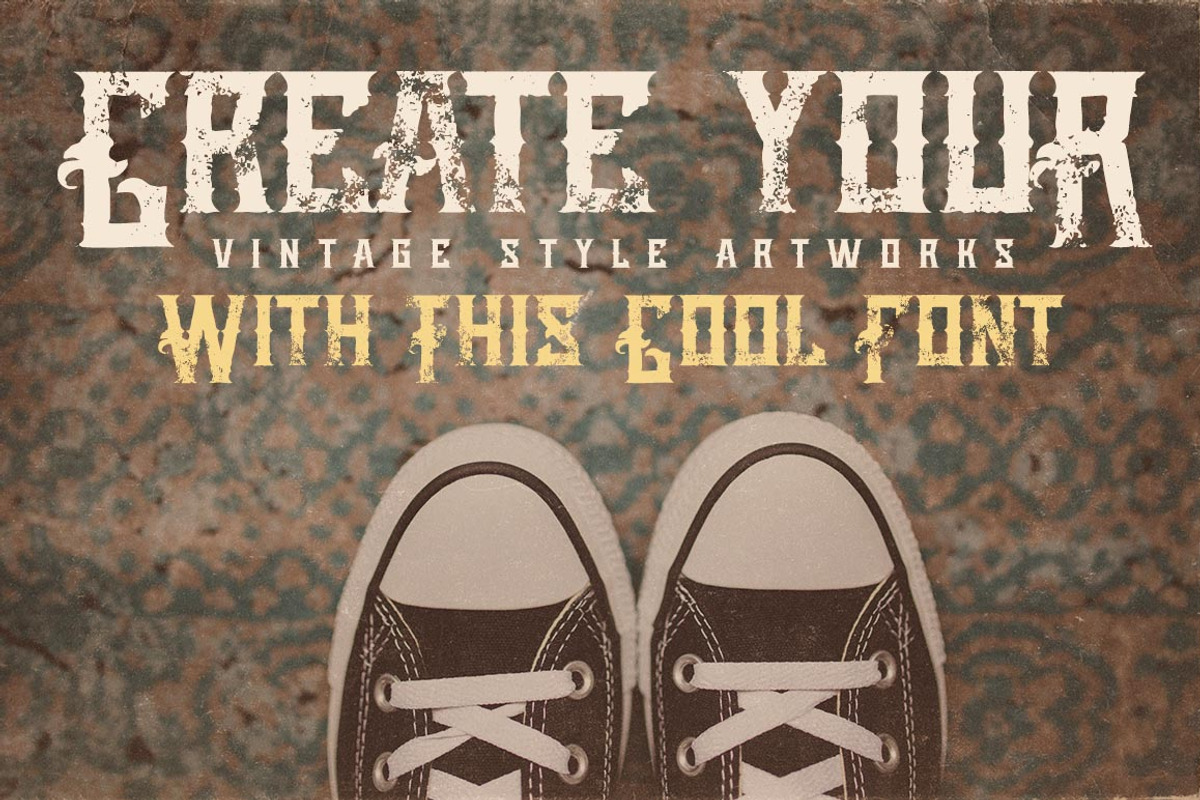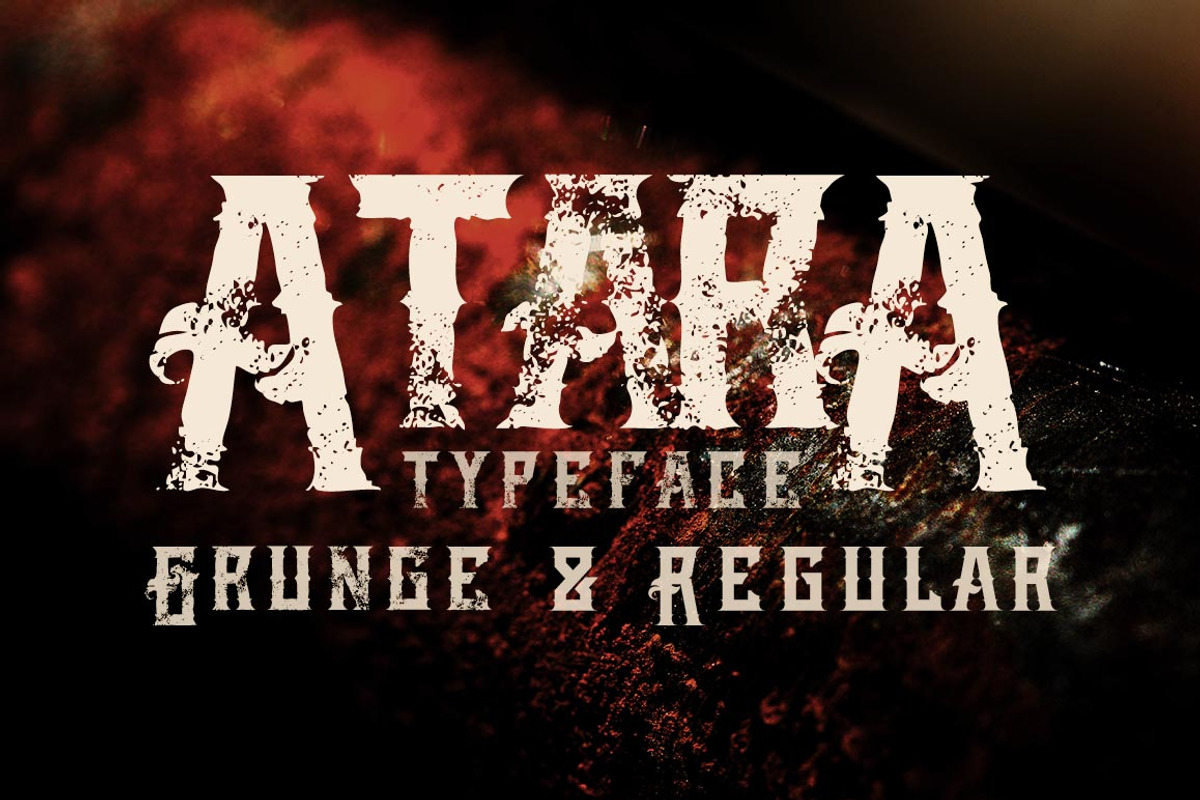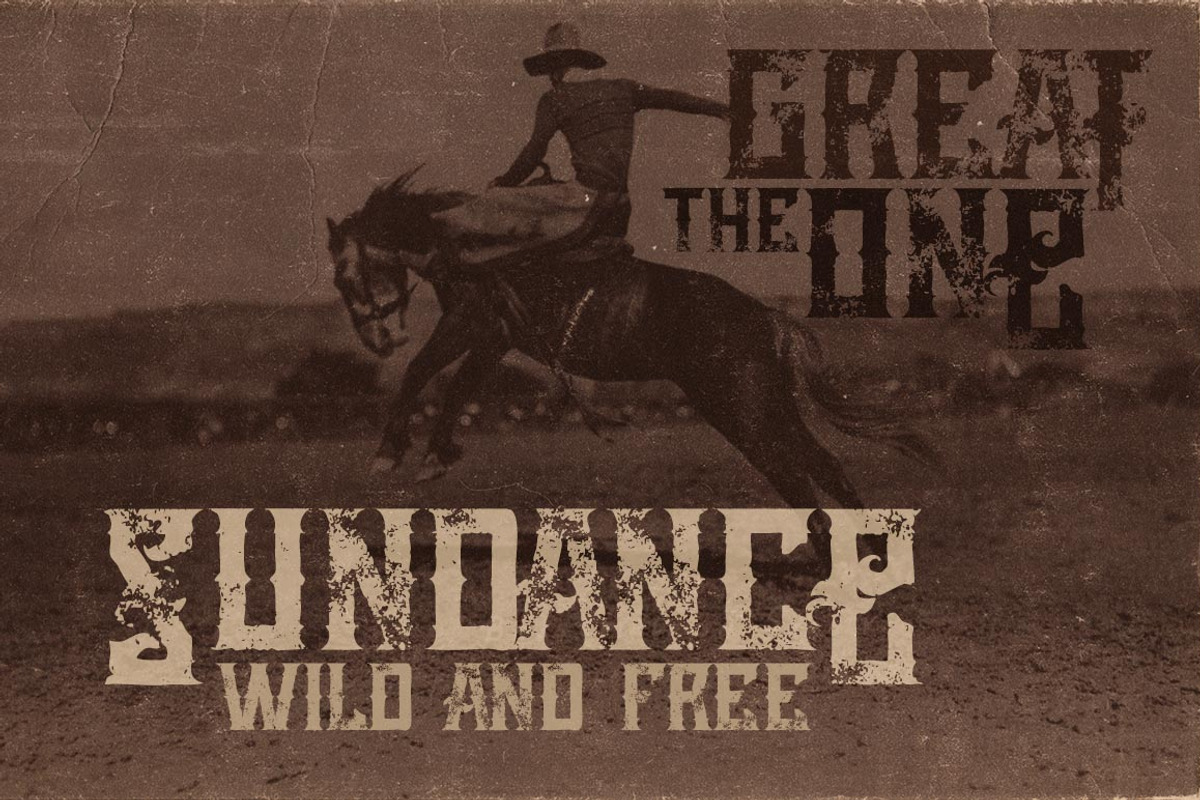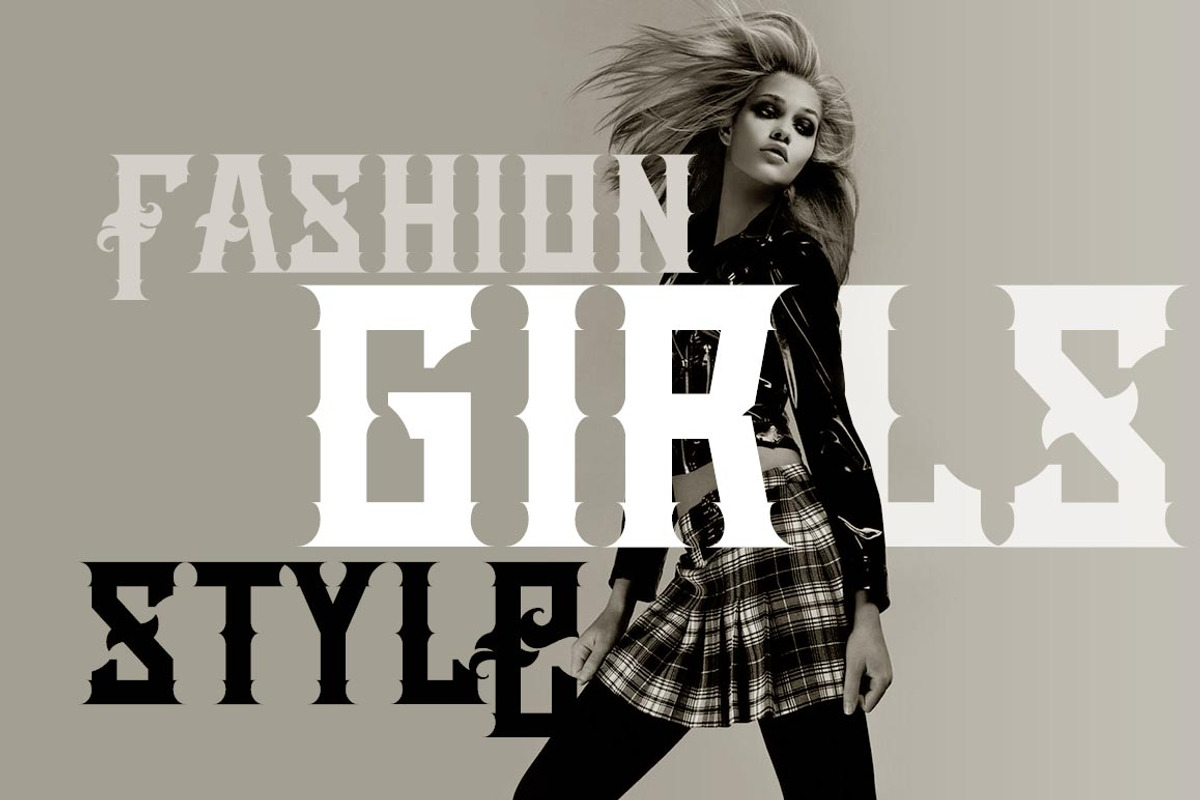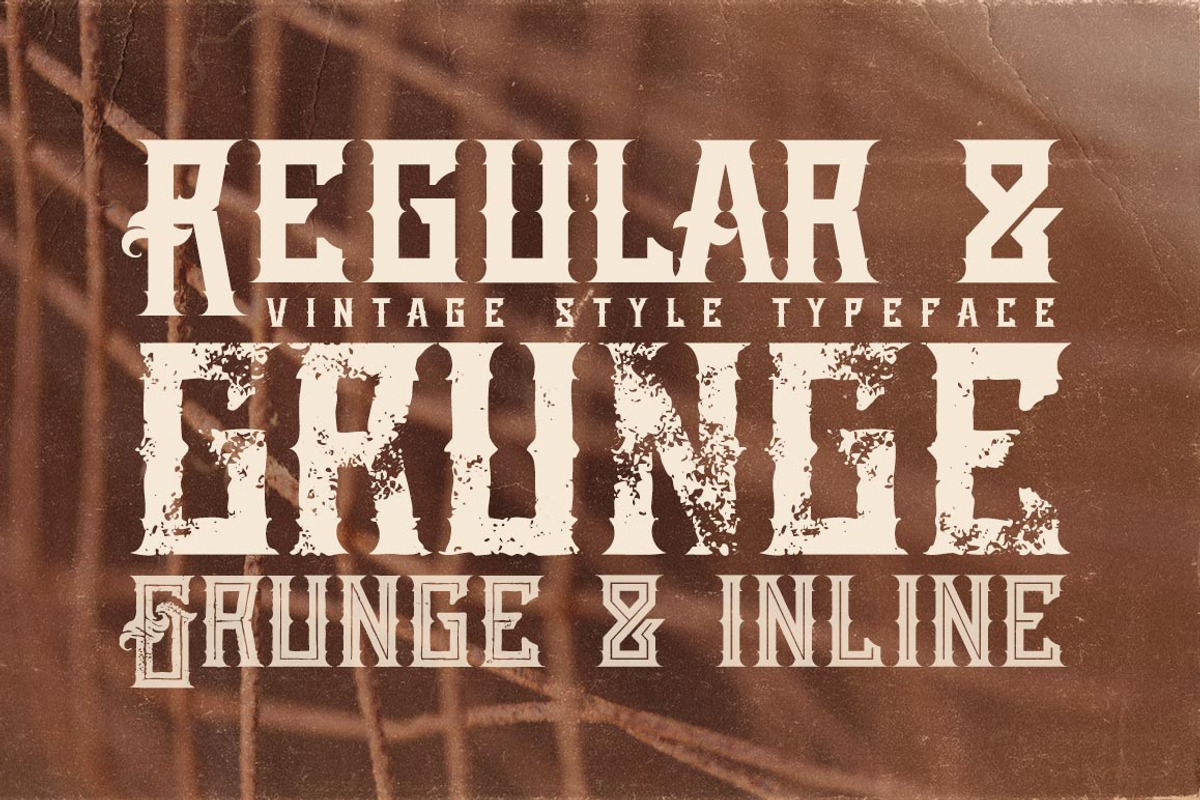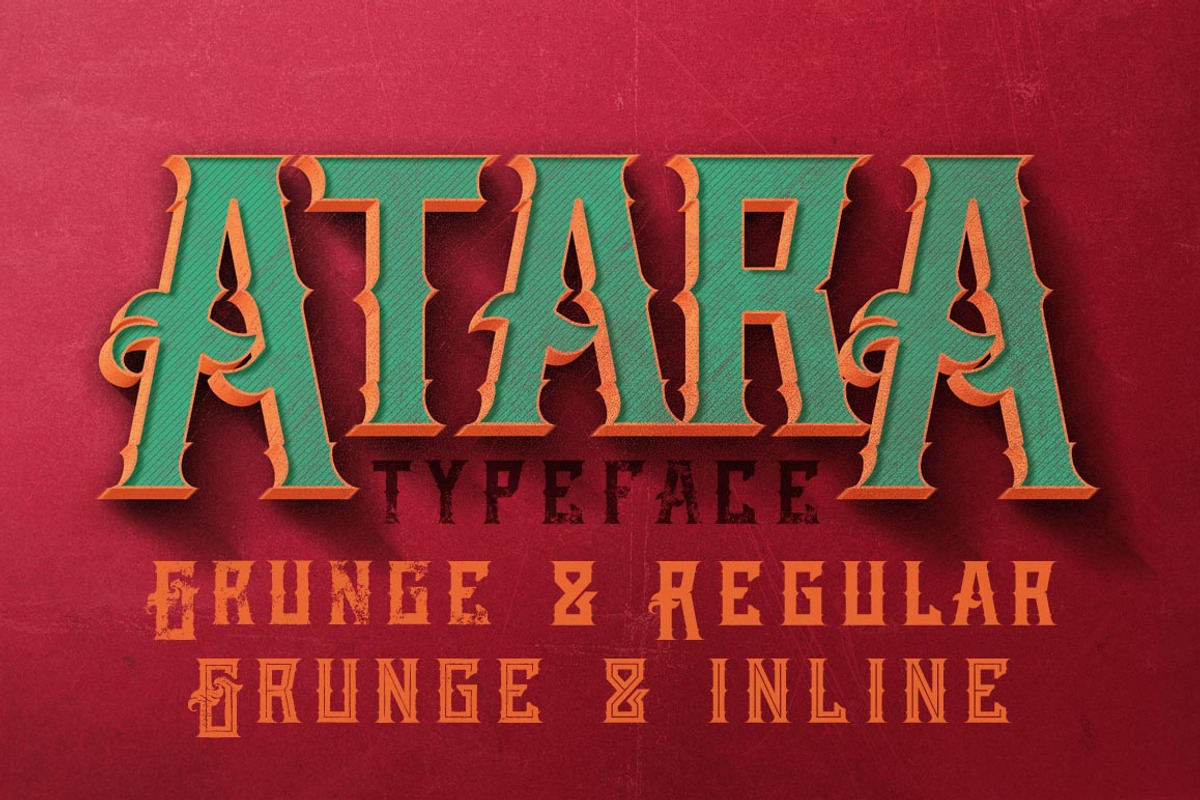
Atara - Vintage Style Font
Atara - Vintage Style Font by JumboDesign is a font selected for branding, posters, packaging, typography.
Why Atara - Vintage Style Font is worth a look
Atara - Vintage Style Font by JumboDesign fits naturally into Branding, posters, packaging, typography.